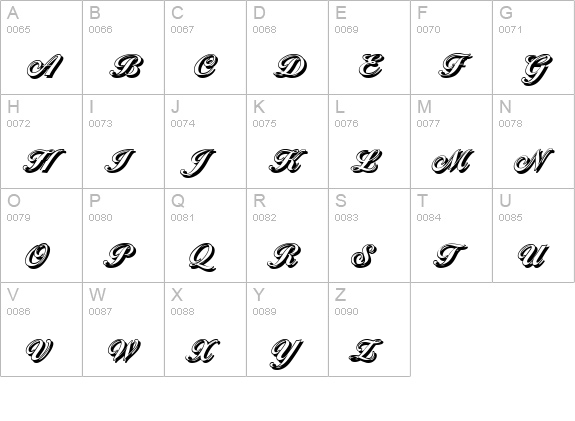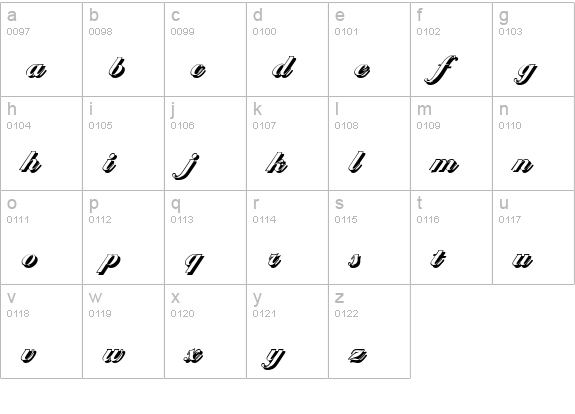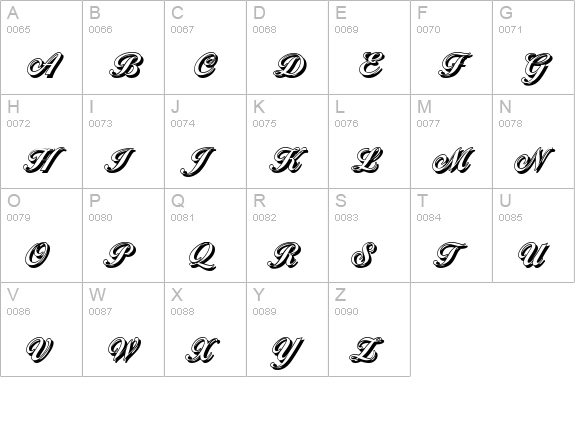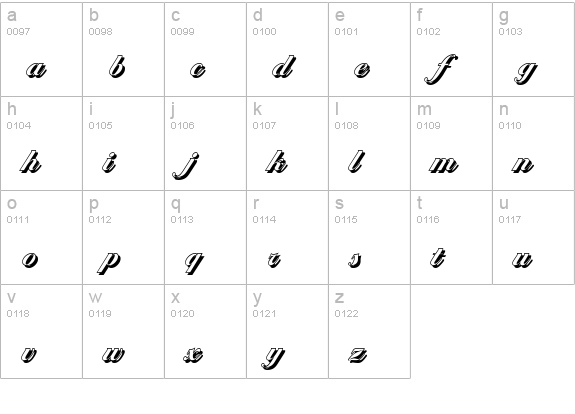
BallantinesShadow-Xbold-Regular is the standard, neutral variant in the BallantinesShadow typeface family \xE2\x80\x94 well suited to general body text, paragraphs, and standard typographic work.
BallantinesShadow-Xbold-Regular is a striking and bold font that exudes power and confidence. With its sharp edges and strong presence, this font is perfect for making a bold statement in any design project. The unique shadow effect adds depth and dimension, making it stand out from the crowd. What's even better is that BallantinesShadow-Xbold-Regular is available for free download at FontsMarket.com. This means you can easily add this impressive font to your collection without any cost. Whether you're working on a poster, logo, or website design, BallantinesShadow-Xbold-Regular will surely make a lasting impression. Download it now and let your creativity shine with this exceptional font.